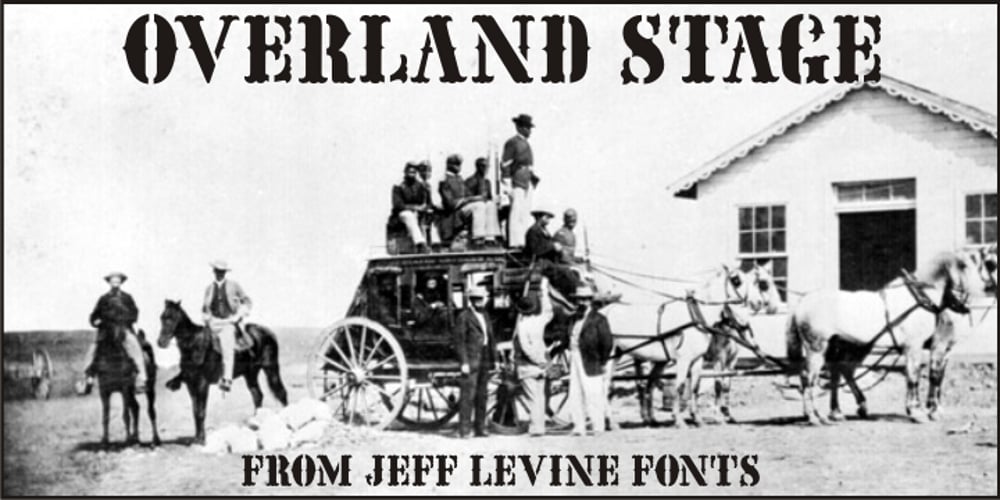
Overland Stage JNL Font Family was designed by Jeff Levine and published by Jeff Levine. Overland Stage JNL contains 1 styles and family package options. There are very few Western-style stencil digital fonts available, hence Overland Stage JNL. In the days when stage coaches, wagon trains, the Pony Express and the first transcontinental railroad crossed the landscape of this country, merchants shipped their goods any way possible to the growing territories and states. Picture wooden cases filled with dry goods, hardware or foodstuffs marked in hand-cut stencil lettering and nailed shut for their cross-country journey. Companion fonts to complement this design are Frontiersman JNL (Western lettering with an inline engraving) and Frontiersman Black JNL.